Apple heart mark
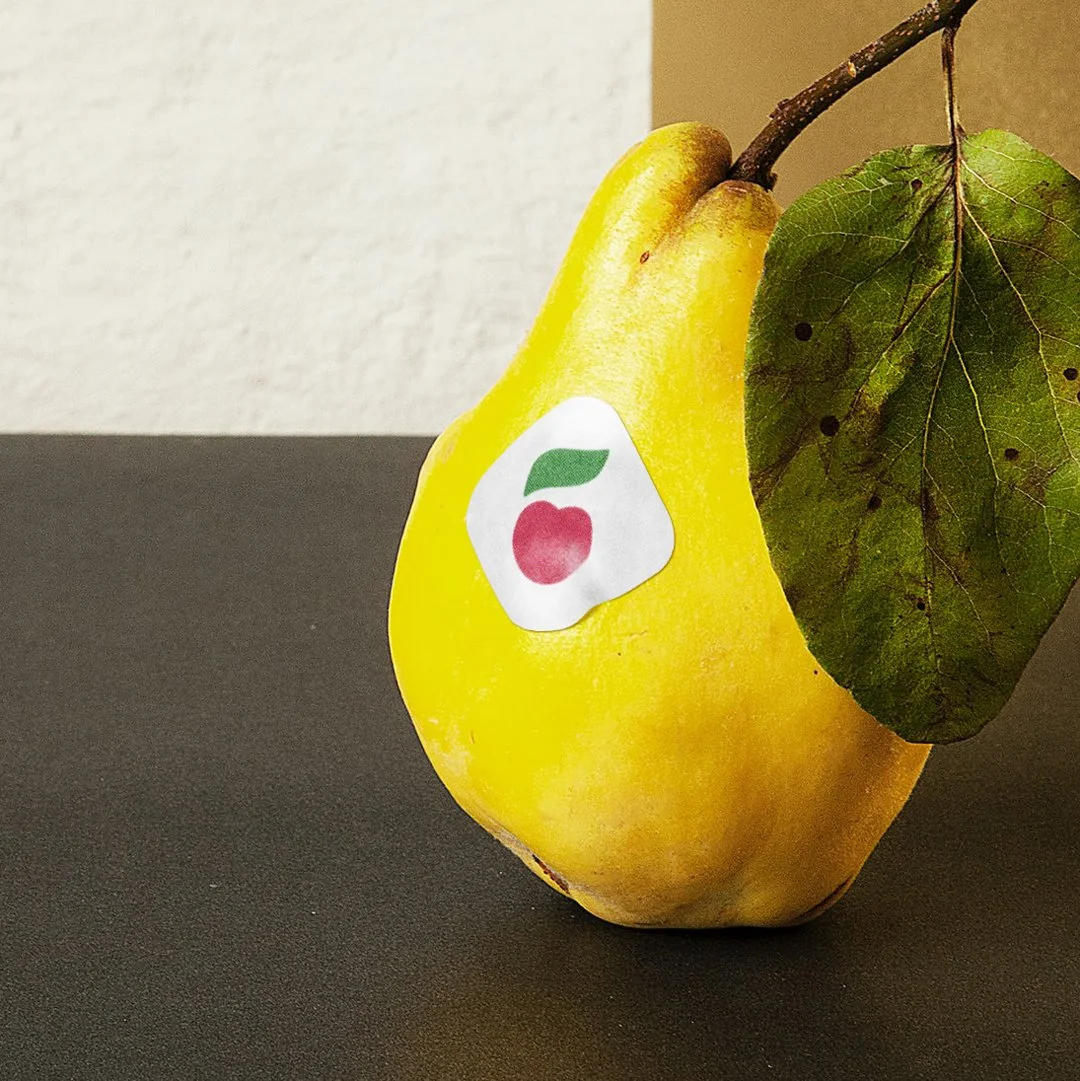
Apple heart mark
A friendly and mellow mark combining the Cyrillic letter “б” [b] with a subtle apple / heart shape. Aimed at bio brands and products. Keywords: bio, eco, organic, fruit, produce, food, био.